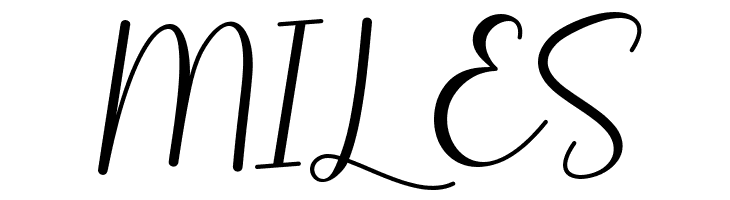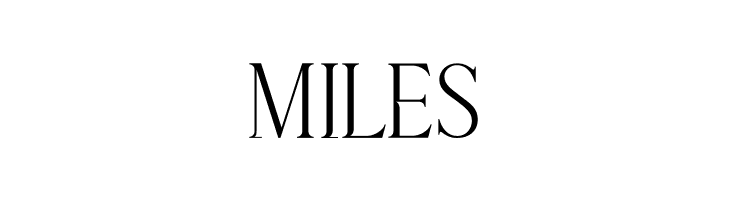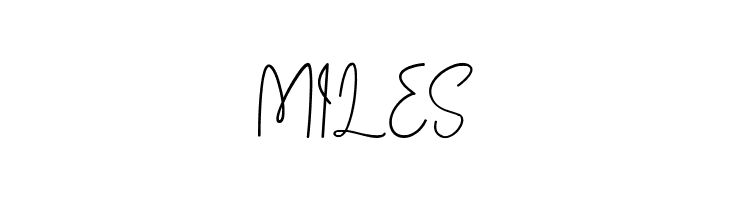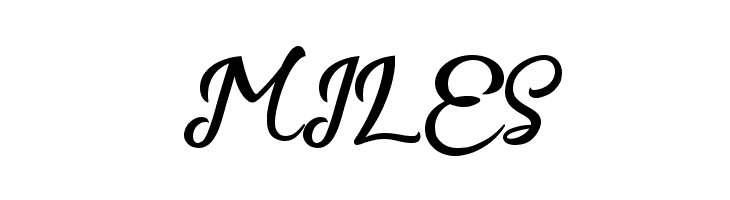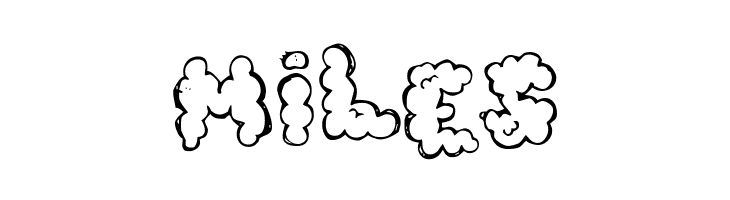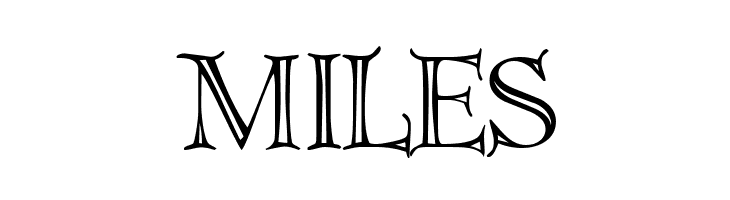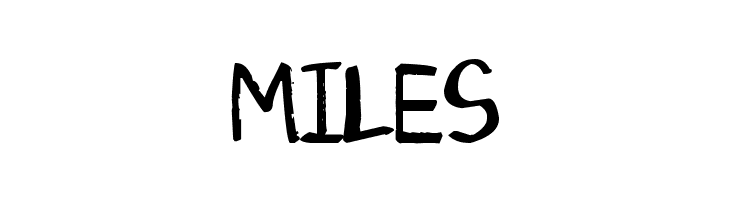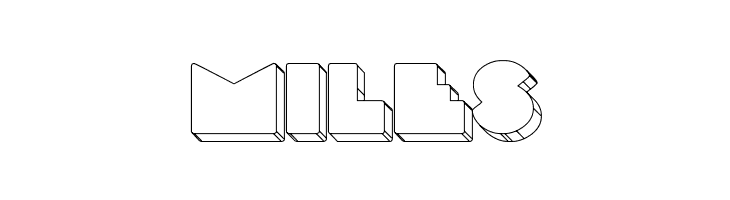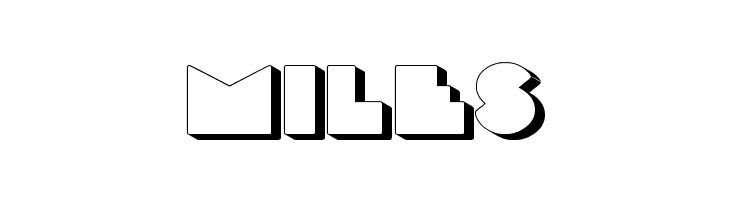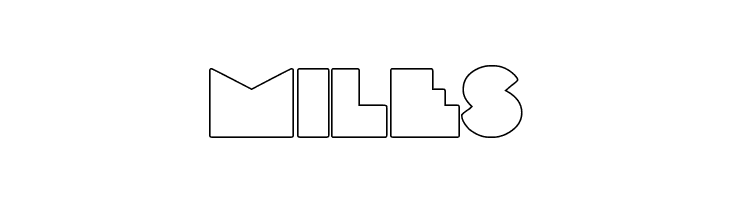
A high-contrast, elegant serif font with dramatic strokes and sharp serifs.
A classic serif font with high contrast and elegant strokes.
A playful, hand-drawn font with tall, narrow letters and consistent stroke width.
A playful and whimsical font with bold, rounded strokes and an artistic flair.
A playful, bold font with a whimsical, liquid-like design.
A decorative font with a woven, geometric pattern for a striking visual impact.
A classic, elegant script font with flowing cursive letters.
A bold, modern sans-serif font with clean lines and strong readability.
A playful and elegant handwritten script with charming embellishments.
An edgy, artistic font with sharp angles and irregular strokes.
A classic serif font with decorative alternates and moderate contrast.
A classic serif font with an elegant italic slant and refined details.
A classic serif font with elegant lines and a traditional, sophisticated appearance.
A playful, handwritten font with smooth curves and consistent thickness.
A bold, hand-drawn font with a rustic, lively charm.
An ornate and bold serif font with intricate, angular details.
A bold, angular font with a geometric and edgy design.
A bold, geometric hollow font with angular, edgy outlines.
A bold, angular font with a runic, stone-carved aesthetic.
A playful, handwritten font with a casual, cursive-like style.
A bold, geometric font with a blocky and modern design.
A bold, industrial-style font with a diamond plate texture.
A bold, geometric font with a modern and futuristic design.